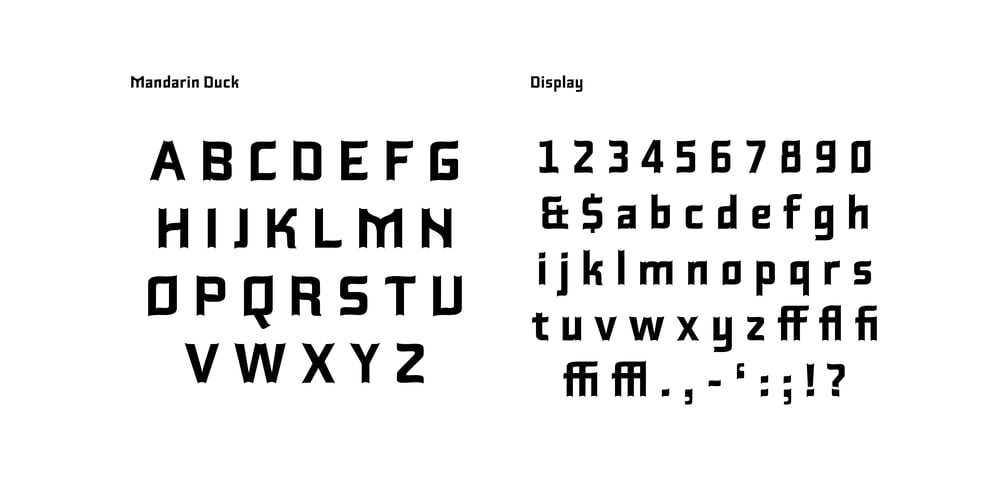
Mandarin Duck
Mandarin Duck font
Mandarin Duck Font Family was designed by Yasemin Varlik and published by Yasemin Varlik. Mandarin Duck contains 1 styles and family package options. Mandarin Duck is a very playful typeface where its design was inspired by the rare duck seen in New York once every year. The delicate tail of this duck creates the edges of the characters. It is bold and fun, a perfect typeface for children books and larger texts.